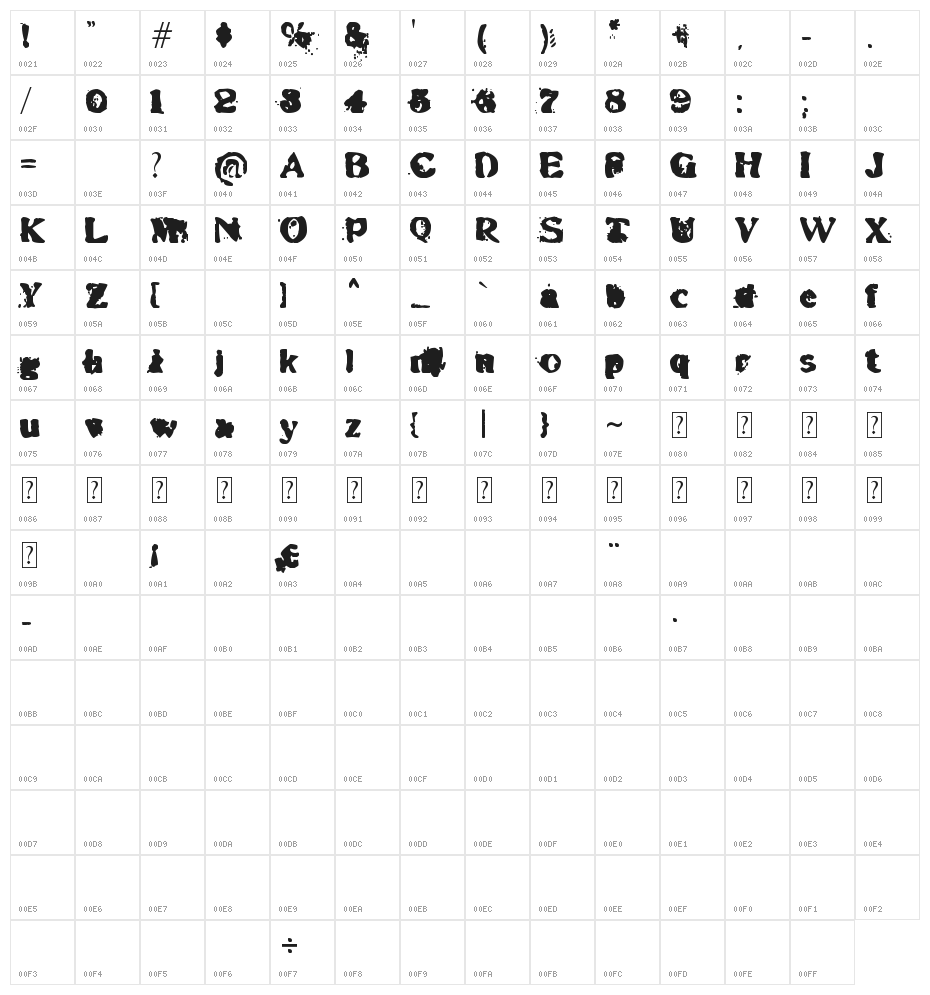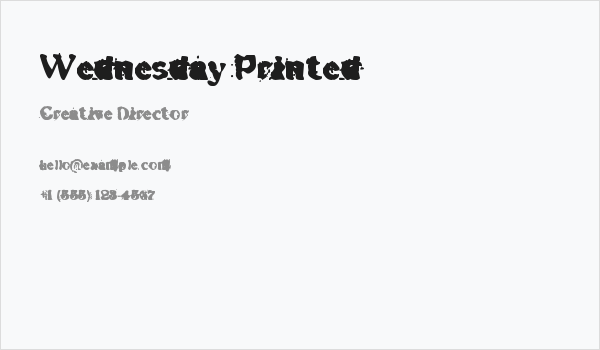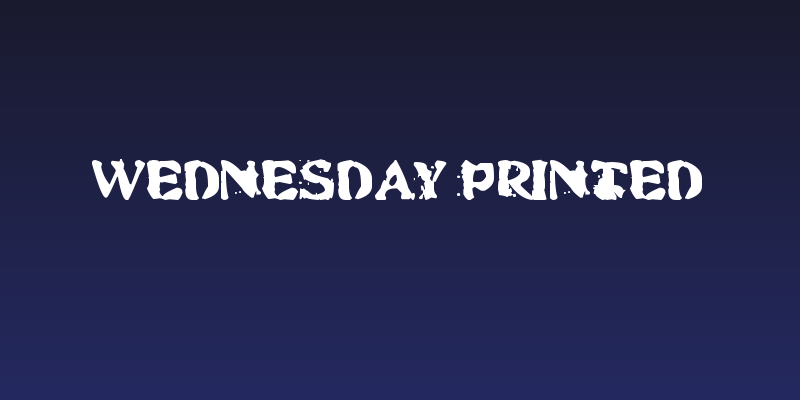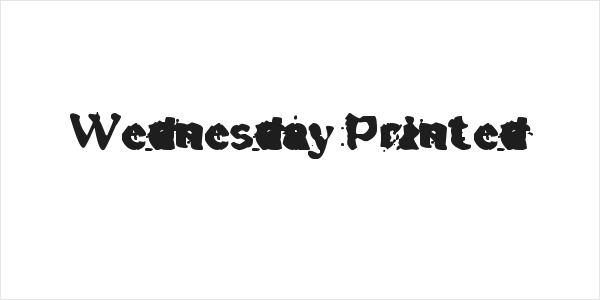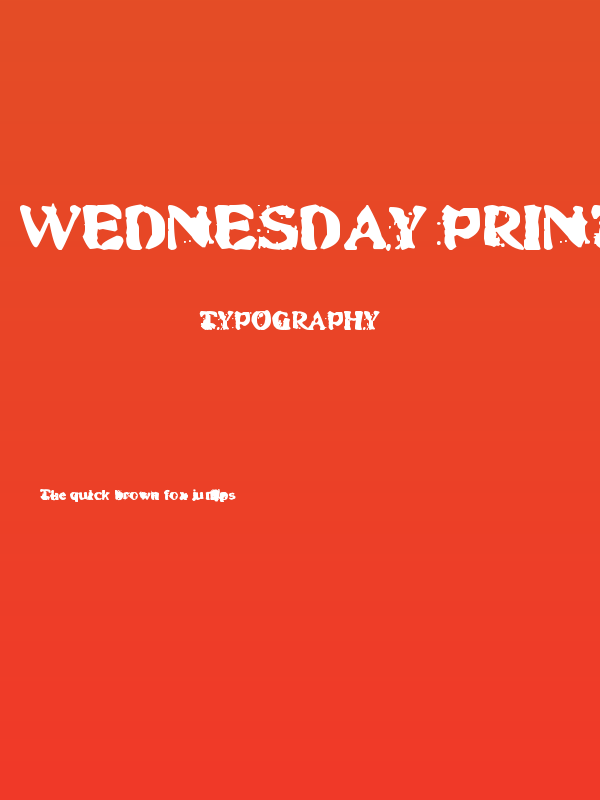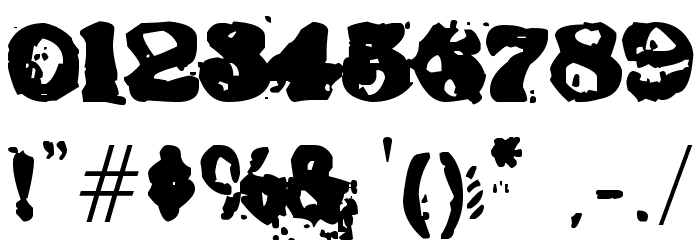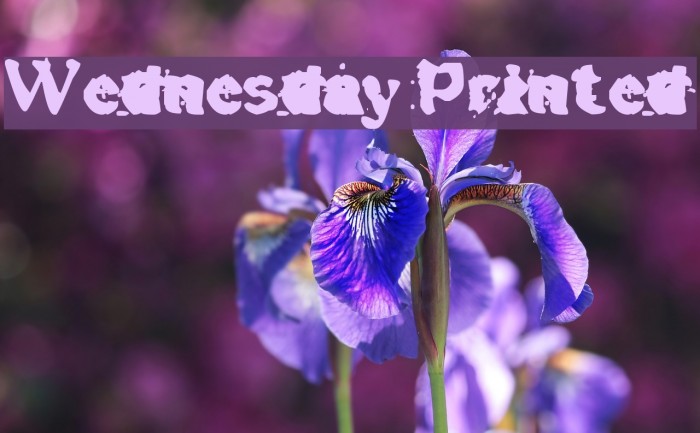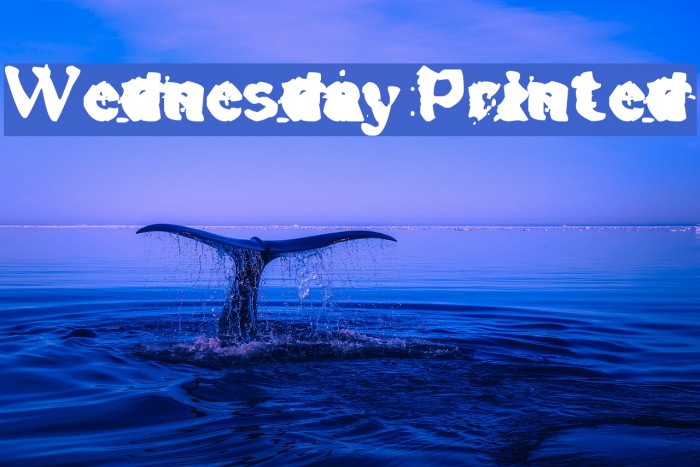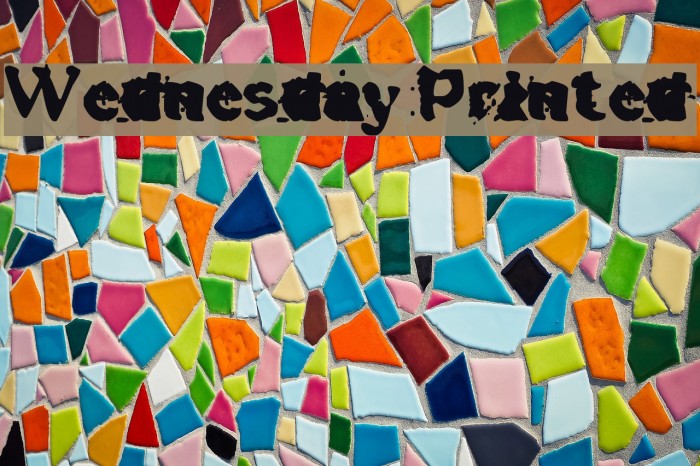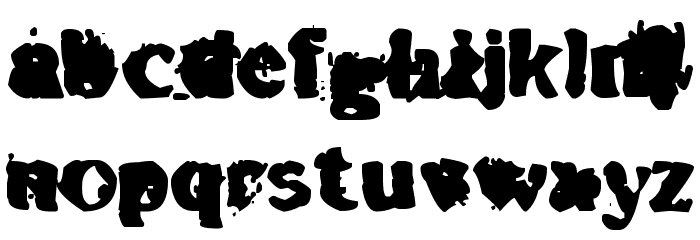
Wednesday Printed Font
Wednesday Printed Description
This font features a bold and distressed style, reminiscent of ink splatters or paint drips. Each character appears as if it has been stamped or printed with a rough texture, giving it a grunge and edgy appearance. The uppercase and lowercase letters maintain a consistent style, with irregular edges and varying thicknesses that add to the chaotic aesthetic. Numbers and special characters follow the same distressed pattern, ensuring a cohesive look across all glyphs. This font is ideal for projects that require a raw, artistic touch, such as album covers, posters, or urban-themed designs.
| Overall Style | Grunge, Artistic, Urban |
| Proposed Projects | Album covers, posters, street art designs, urban-themed graphics. |